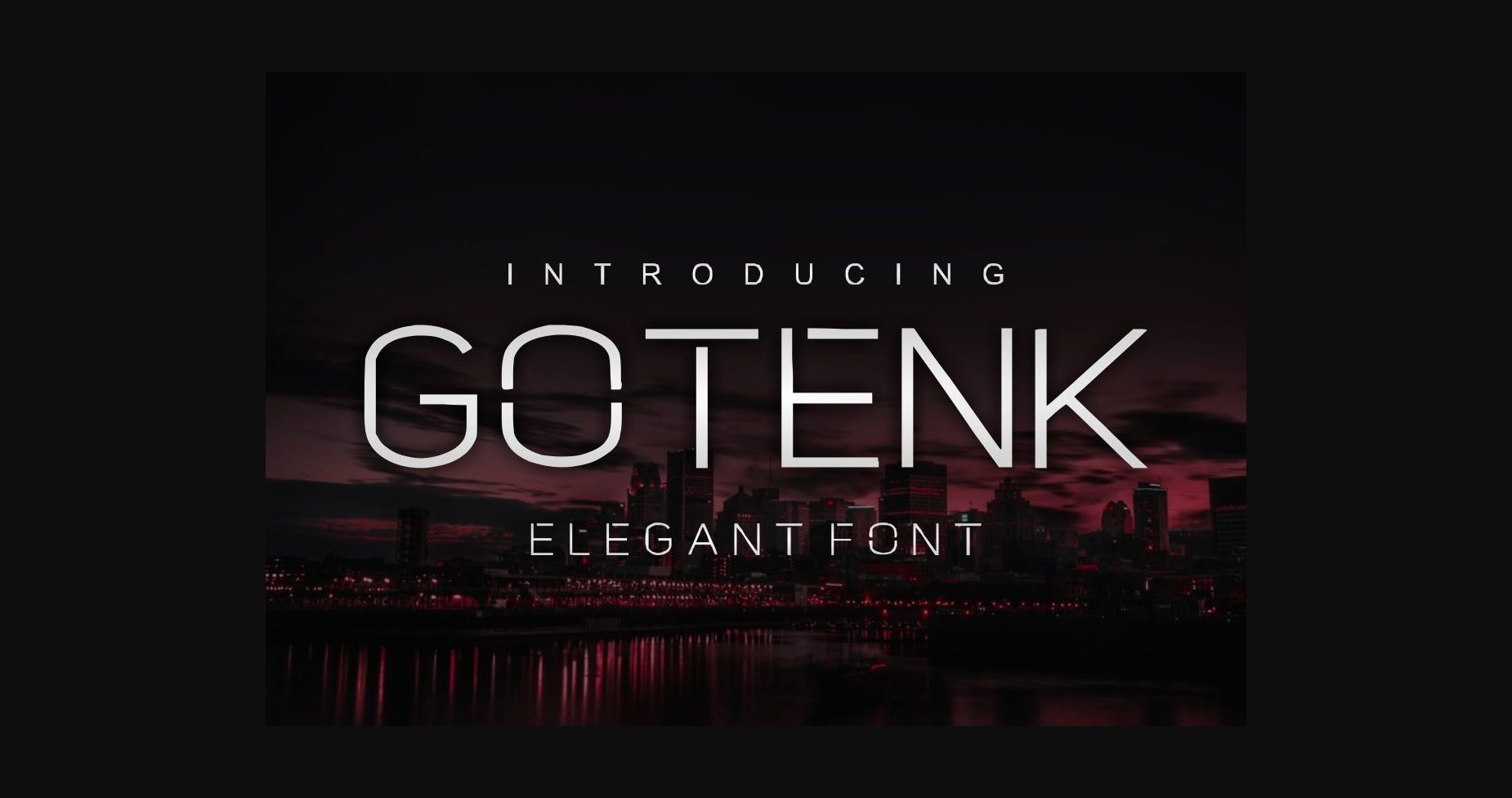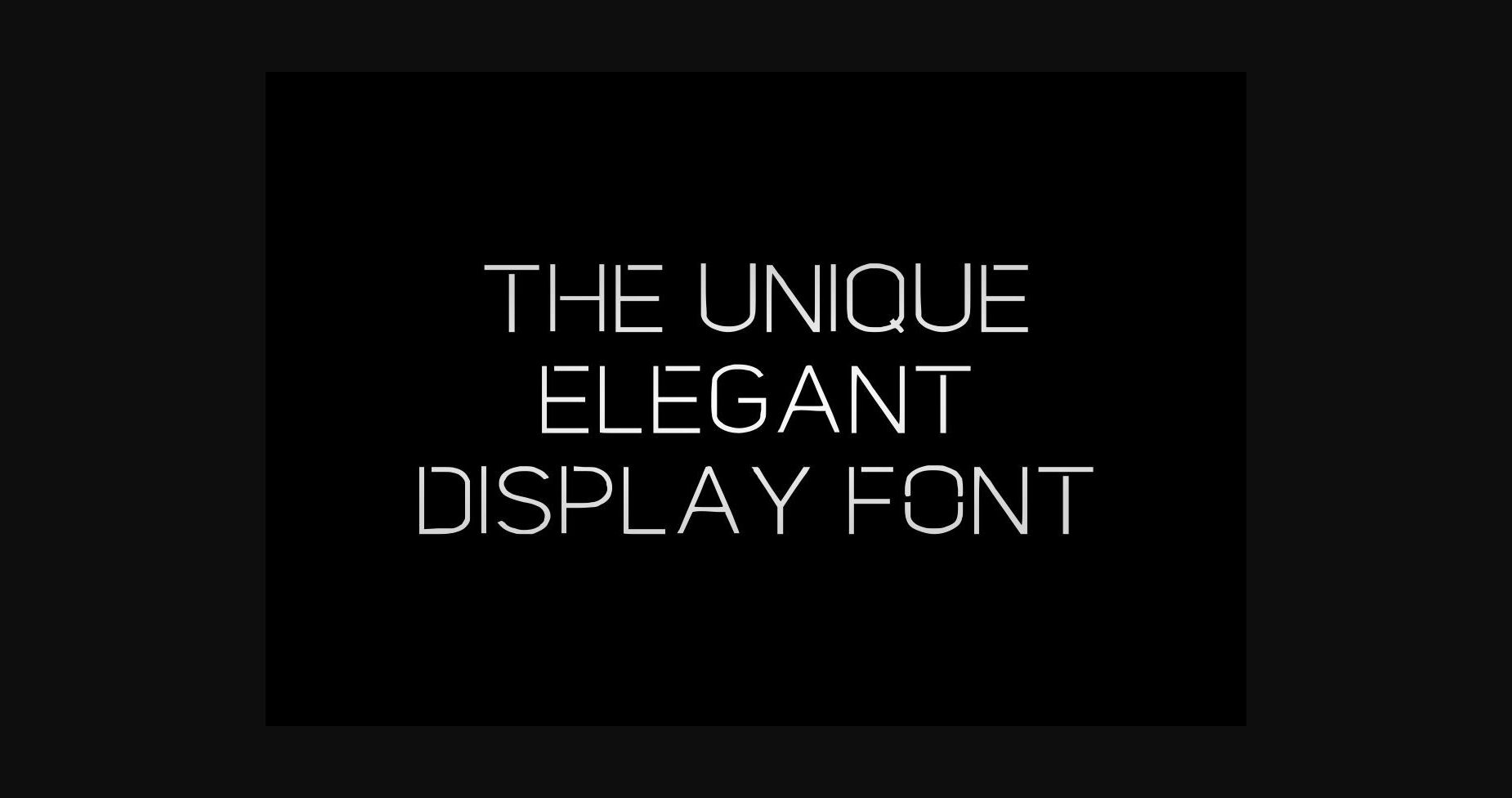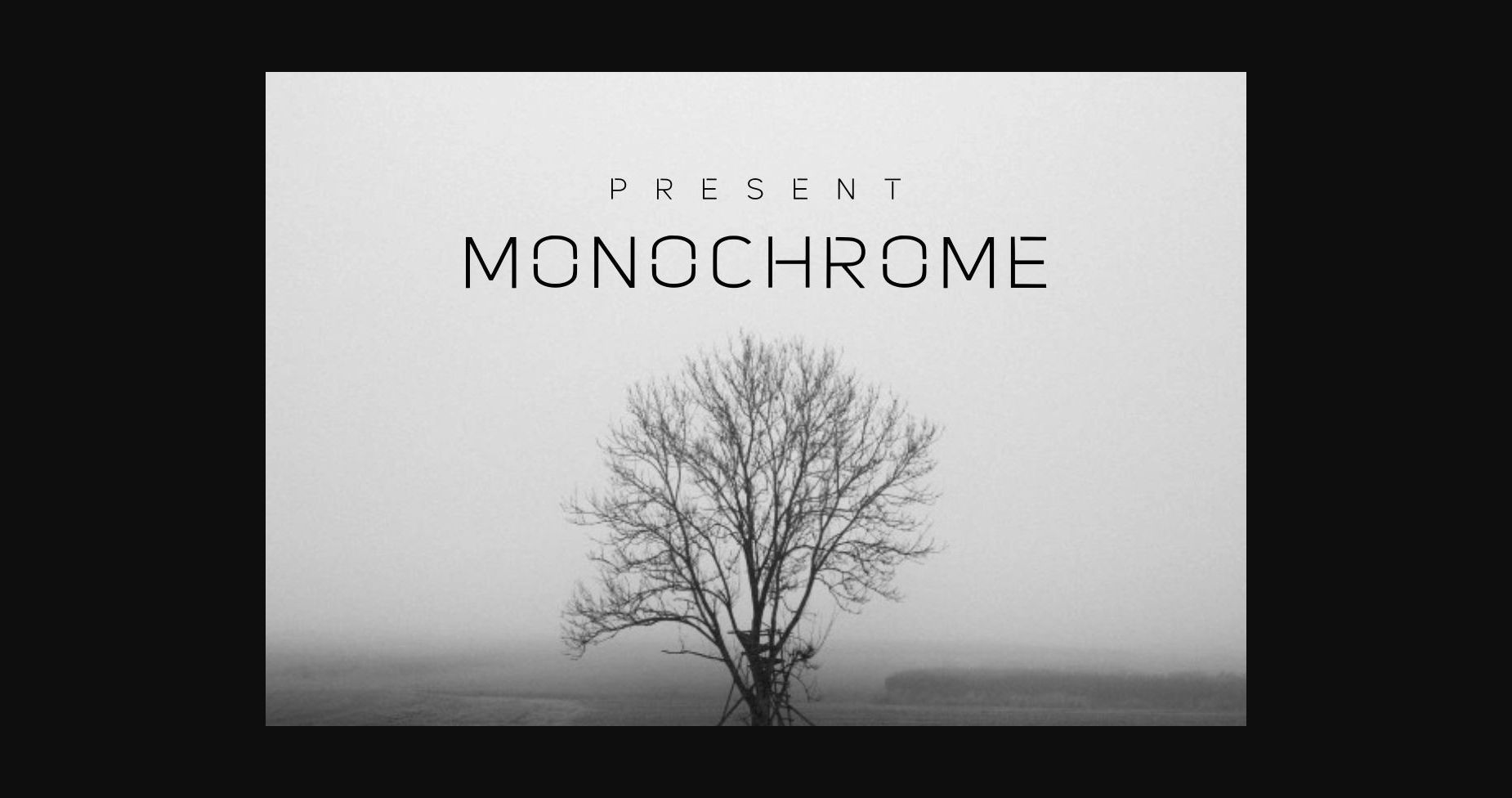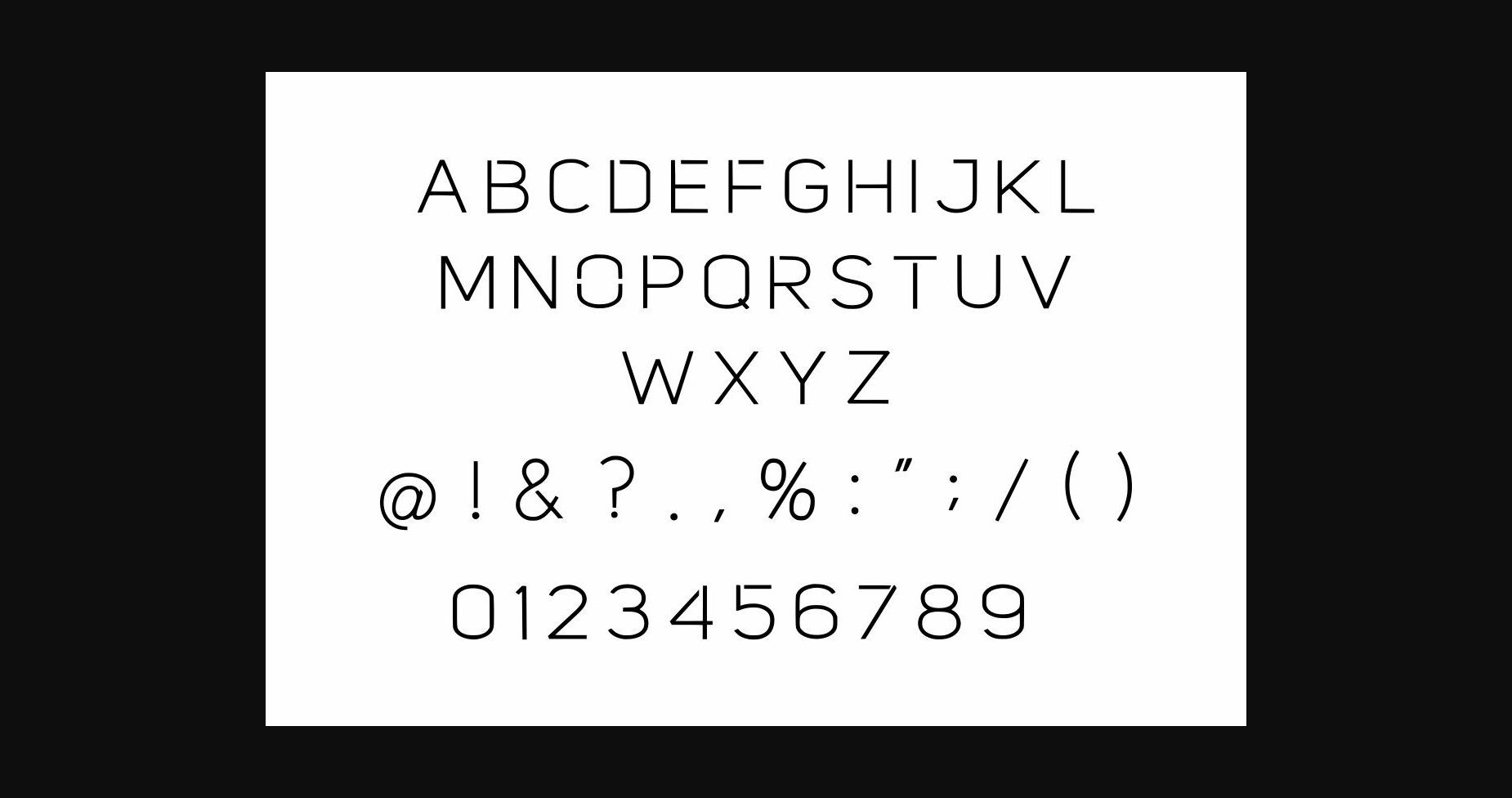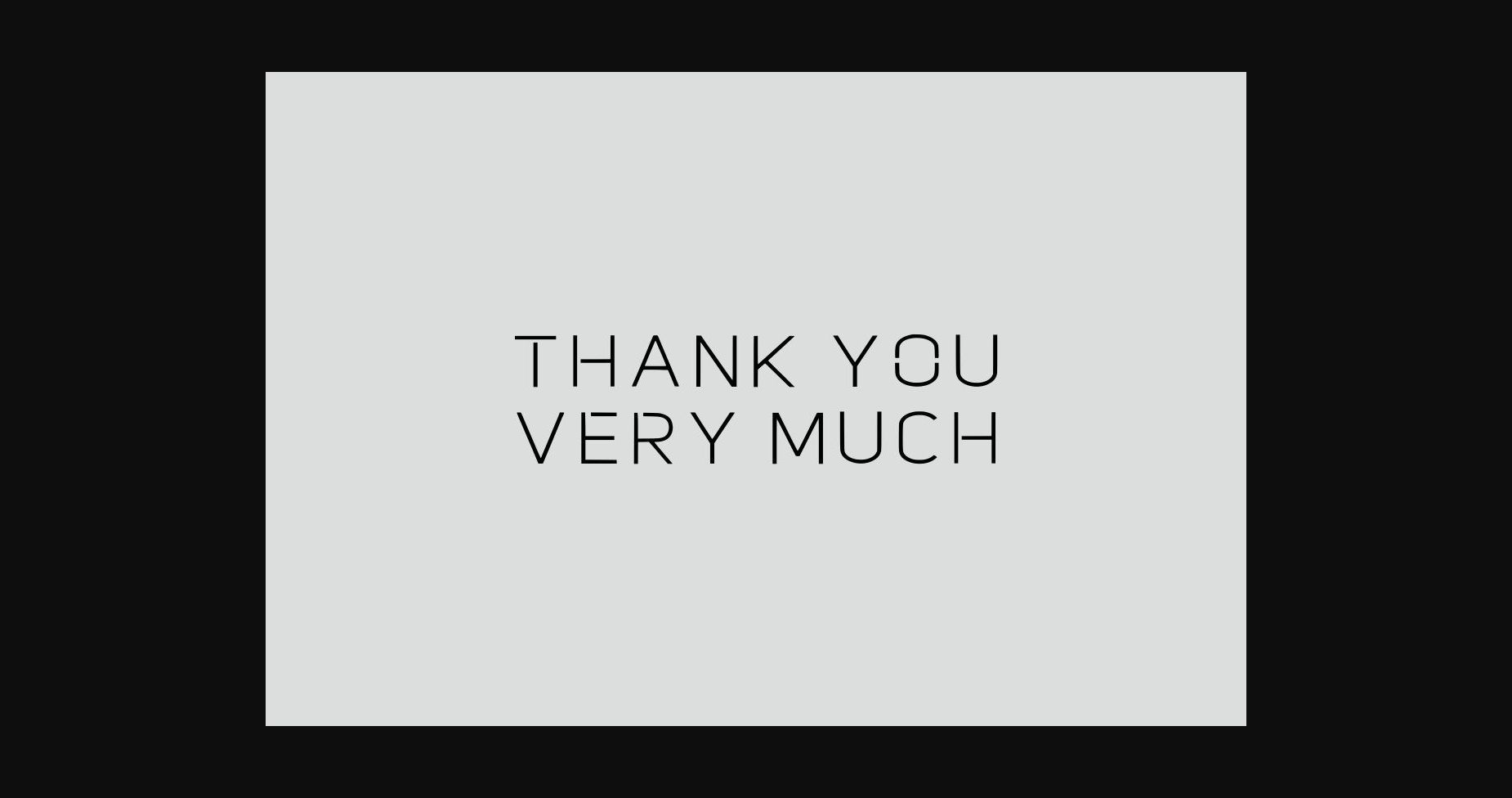
Gotenk Font
About Gotenk Font
Gotenk is a minimal and neat sans serif font that can easily be used on an incredibly large set of projects. Add it to your creative ideas, and notice how it makes them stand out!